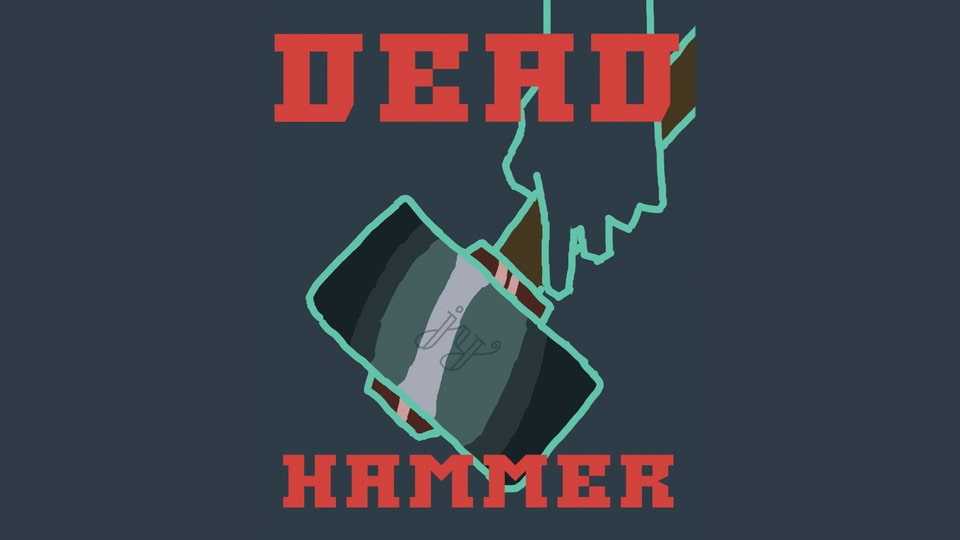
Download Dead Hammer font, a display typeface that exudes strength and confidence with its bold and blocky design. The sharp edges and defined lines create a sense of stability, making it an ideal choice for projects that demand a no-nonsense, assertive aesthetic.
Designer: JingYo